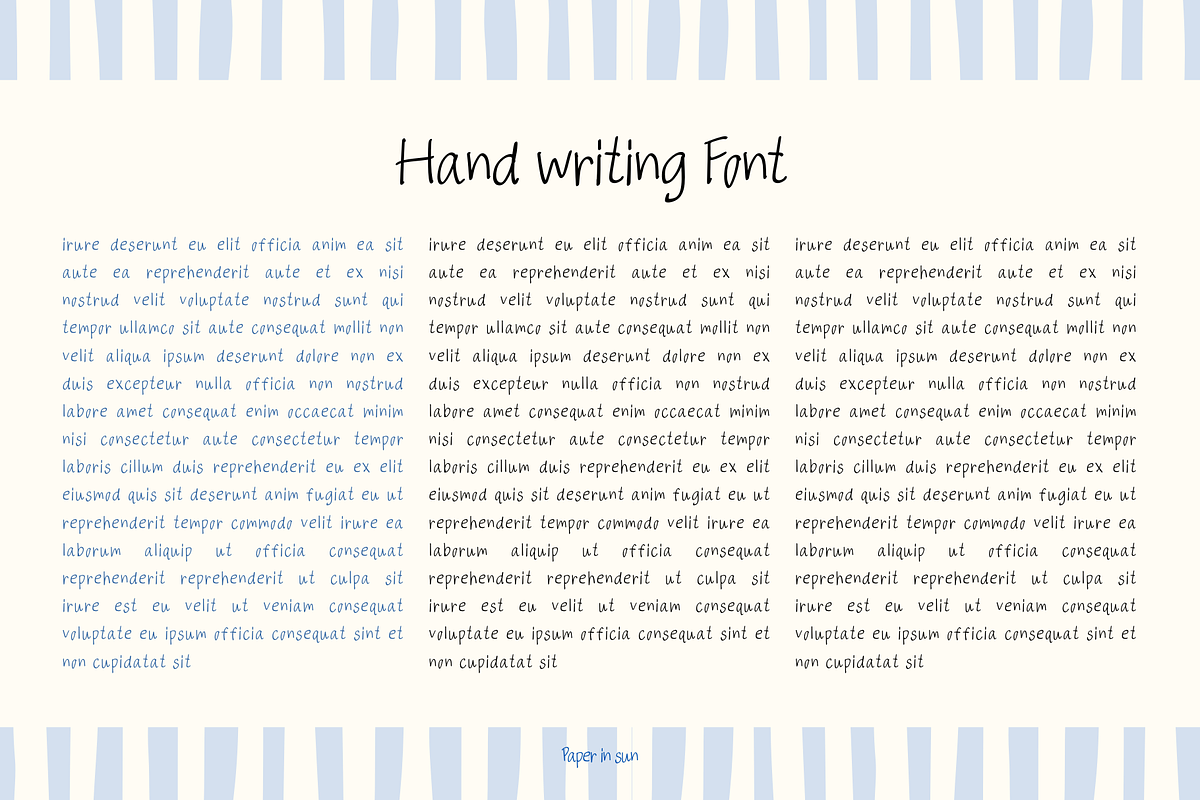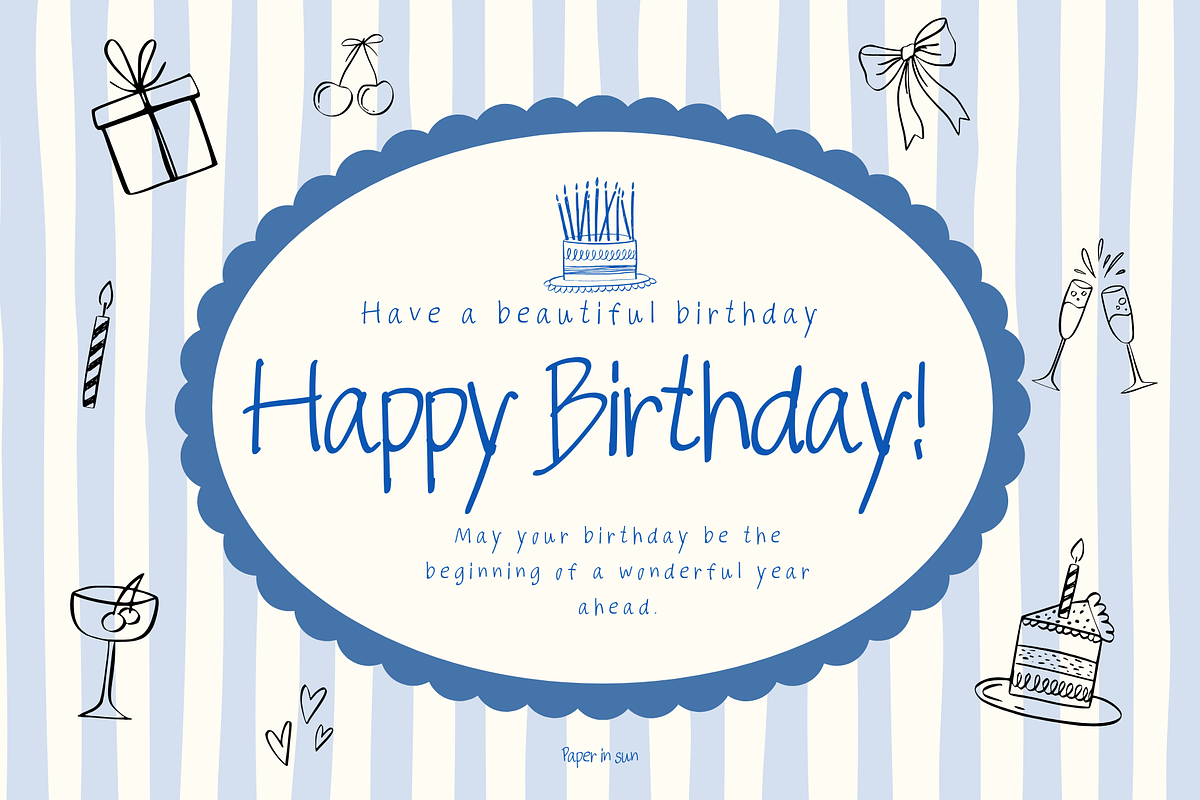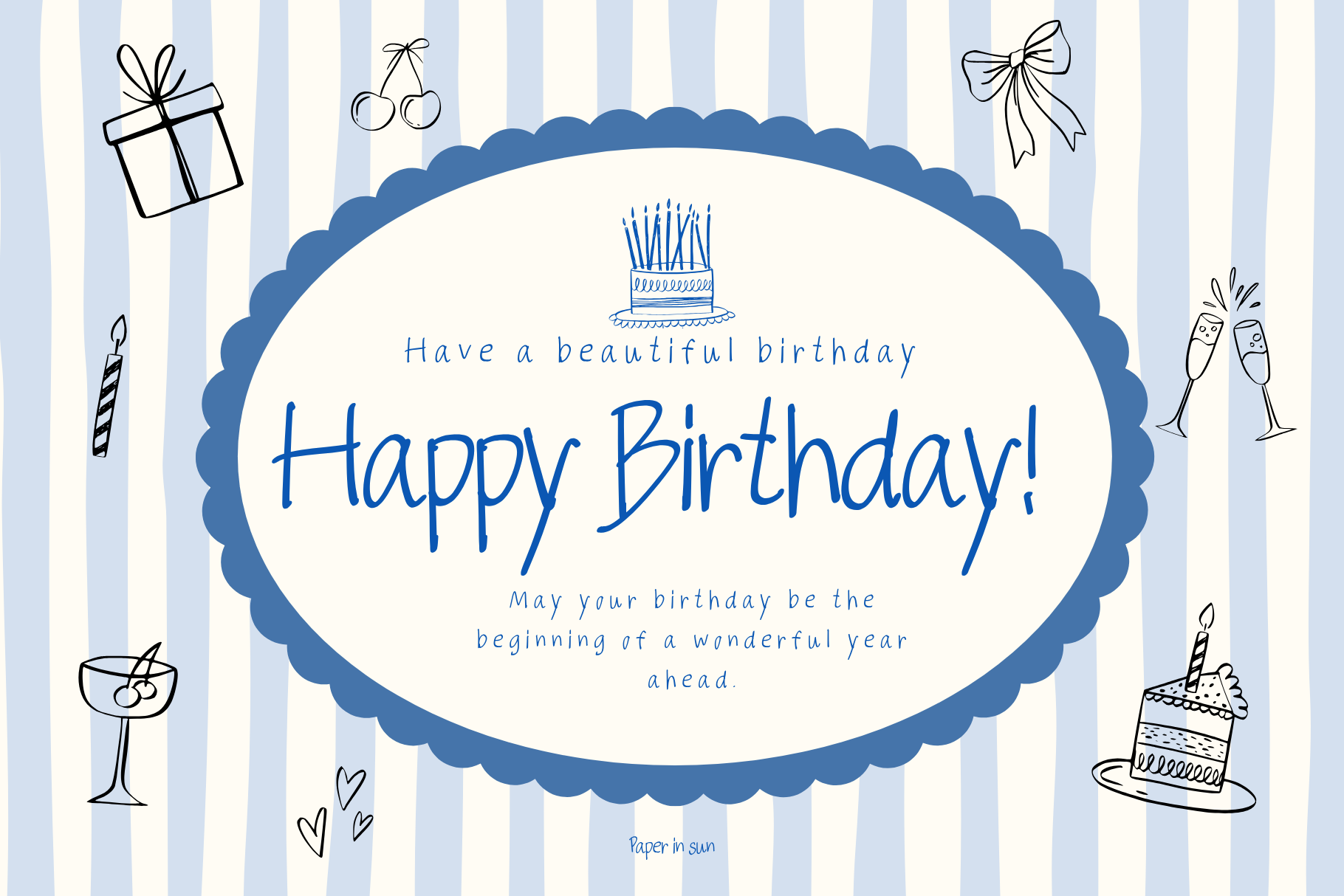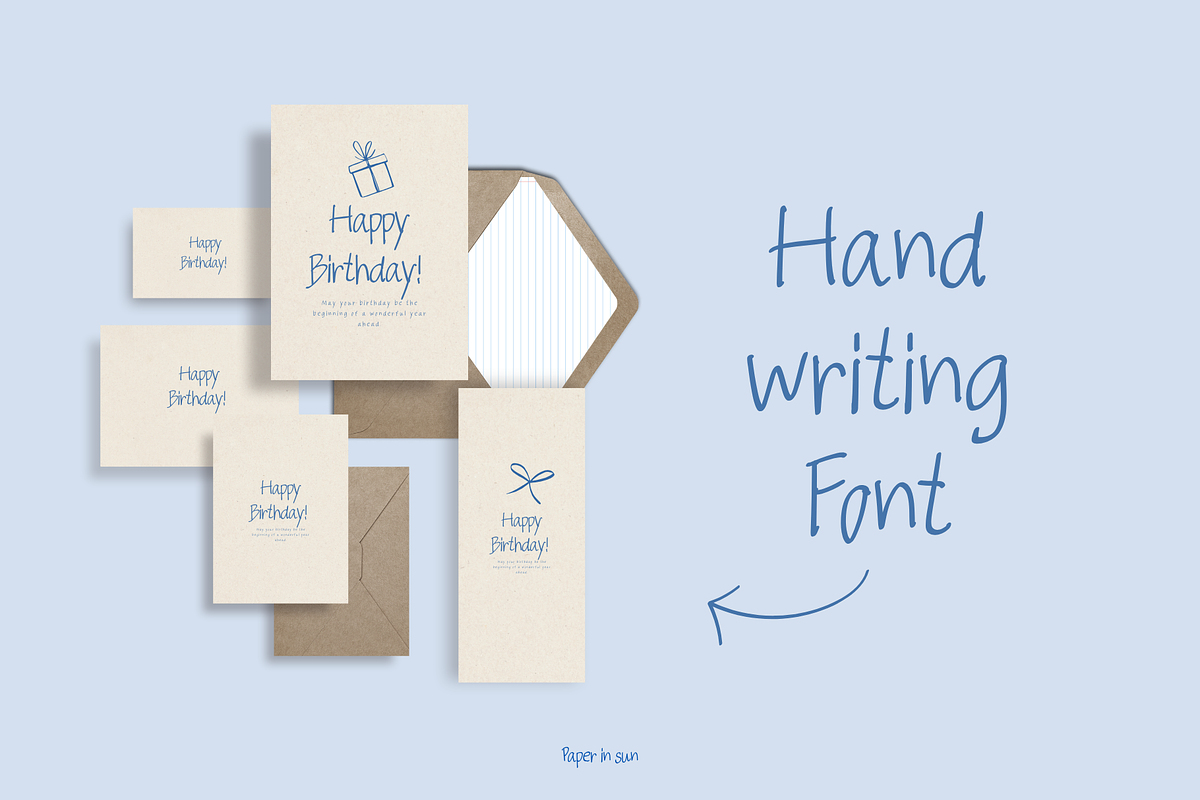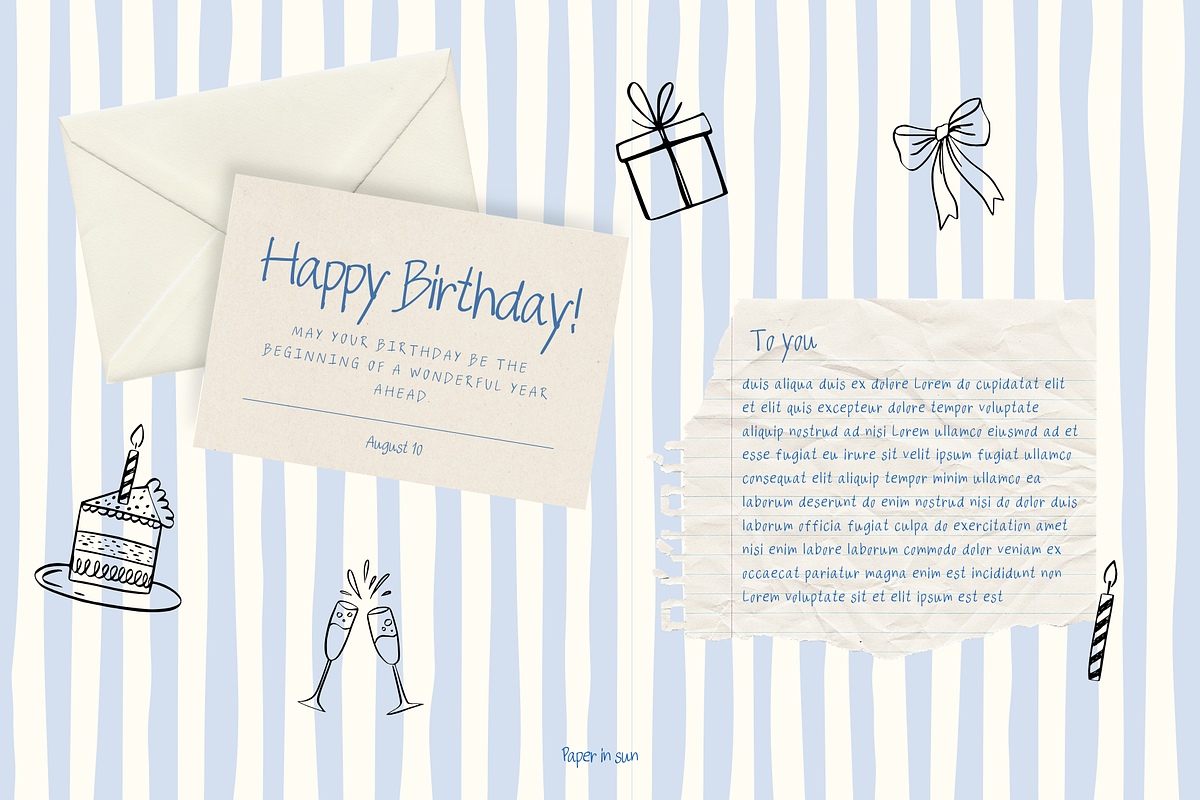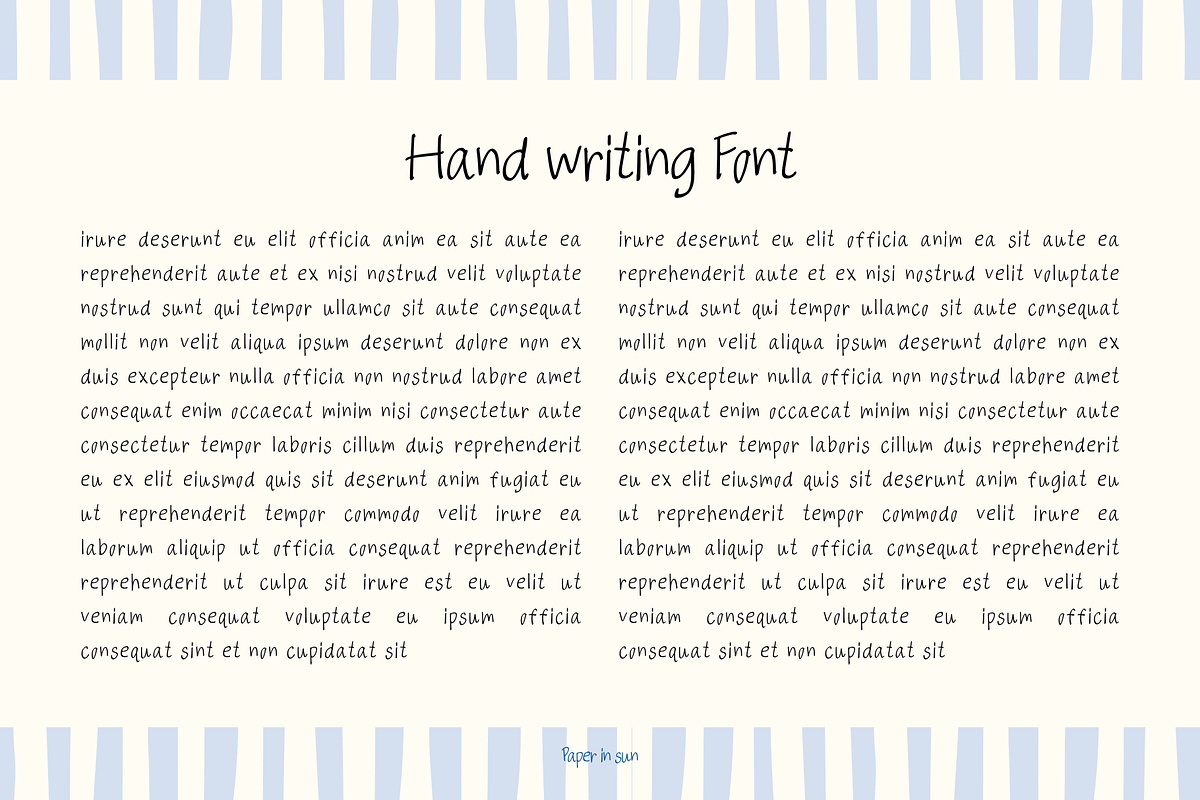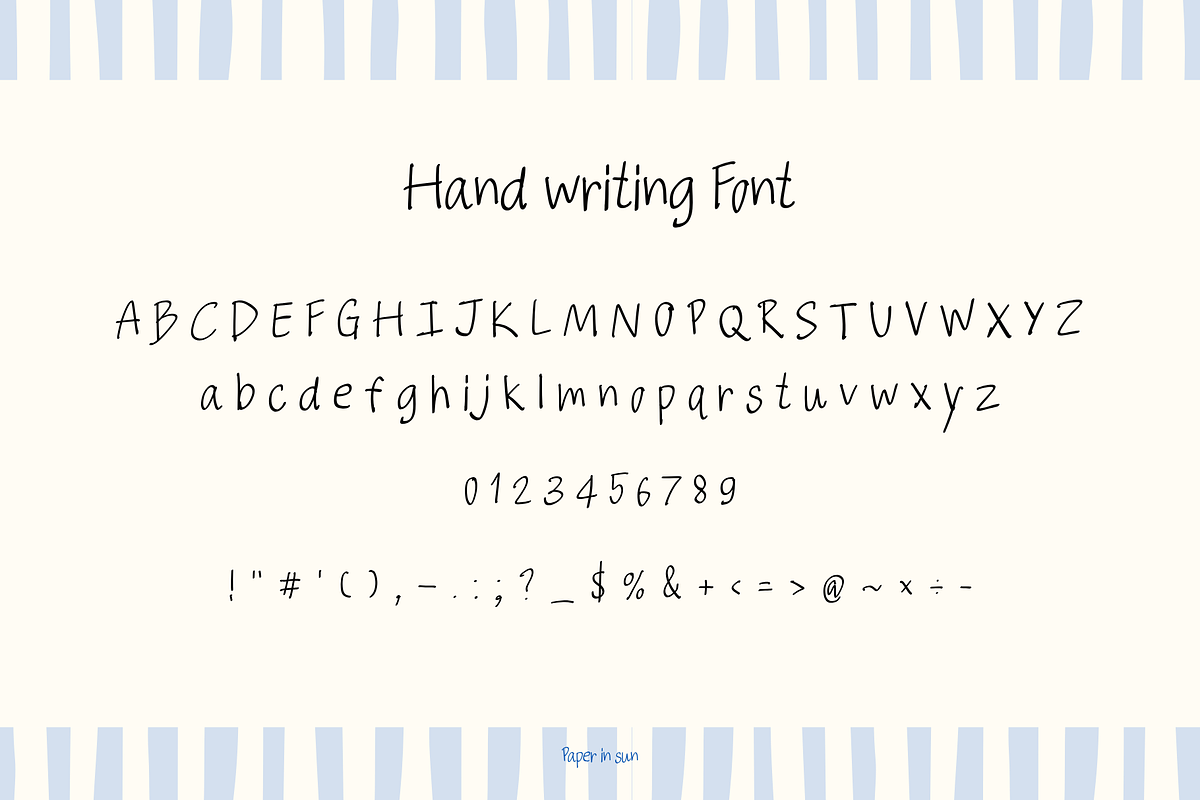
Happy Birthday Font
🎉 Happy Birthday Font – A Charming and Whimsical Handwritten Typeface 🎉
Happy Birthday Font is a casual, hand-drawn typeface designed to look intentionally imperfect, bringing a touch of warmth and personality to any project. Its simple yet adorable style makes it perfect for designs that call for a friendly and playful tone.
- Birthday greeting cards 🎂
- Invitations 💌
- Stickers and decorations 🎁
- Social media graphics 📱
- DIY and craft projects 🖍️
- Cute, hand-lettered style full of character
- Includes uppercase and lowercase letters (A–Z, a–z) and numbers
- Great for both print and digital designs